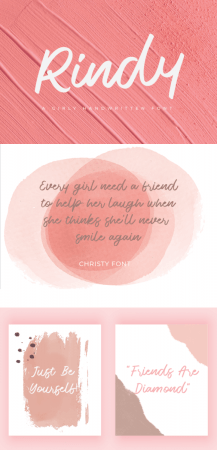
CF - Rindy Font 93303652
Rindy is a charming girly handwritten script font exuding elegance and femininity. With its delicate strokes and graceful curves, it brings a touch of whimsy to any design project. Perfect for invitations, greeting cards, and branding materials, Rindy adds a playful yet sophisticated vibe to your creations.